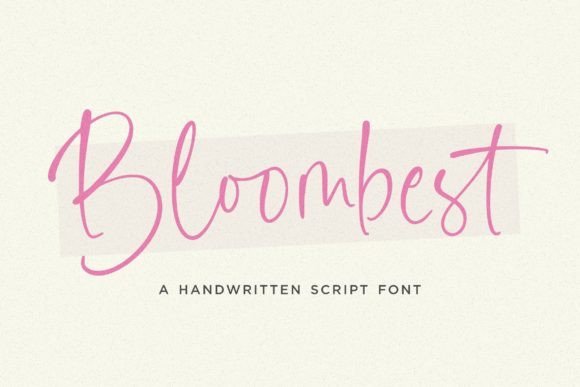
Adding a Personal Touch to Your Designs
Have you ever been working on a design project and felt like something was missing? A spark of creativity that would elevate your work from good to great? For many designers, the solution lies in the perfect font – one that adds a personal touch and makes a lasting impression.
Enter the Bloombest Font, a beautiful handwritten Script that’s sure to capture the essence of your design projects. With its natural, organic feel and unique character, this font is the perfect choice for logos, branding, invitations, and more. Whether you’re a seasoned pro or just starting out, the Bloombest Font is a valuable addition to your design toolkit, offering a modern, handwritten style that’s sure to make an impact.
Bloombest Font Key Features
- Font Styles: Bloombest Font comes in 6 different styles, including Regular, Bold, Italic, Bold Italic, and 2 additional decorative styles.
- Character Count: The font contains over 200 glyphs, including Latin, Cyrillic, and Greek alphabets, as well as a range of punctuation and special characters.
- Unique Characteristics: Bloombest Font features a unique blend of modern and vintage elements, with intricate details and flourishes that set it apart from more traditional fonts.
Bloombest Font Review
I recently had the chance to work with Bloombest Font, and I must say it’s a mixed bag. Let’s start with the good stuff.
- Unique, floral design: Bloombest Font has a distinctive look that’s perfect for spring-inspired projects or anything that needs a touch of whimsy.
- Customizable: The font comes in several styles, including bold and italic, which makes it easy to mix and match to fit your design needs.
Now, onto the not-so-great stuff.
- Limited legibility: In smaller font sizes, the intricate details of Bloombest Font can make it difficult to read, especially for users with visual impairments.
- No language support: Unfortunately, Bloombest Font only supports Latin-based languages, which may limit its usability for projects requiring other language support.
Overall, I think Bloombest Font is a great addition to any designer’s toolkit, but it’s essential to use it judiciously and consider the potential limitations.
Bloombest Font is ideal for creative and elegant designs. Use it for:
- Flower shop branding and packaging
- Event signage and decorations
Alternatives to Bloombest Font for Designers
Bloombest Font is a popular font known for its playful and elegant design. However, there are other fonts that can provide a similar look and feel. Here are a few alternatives:
Great Vibes Font is a modern script font that is perfect for creating a fun and lively atmosphere. It is ideal for use in headings, titles, and other design elements where a playful touch is needed. Great Vibes Font is similar to Bloombest Font in its elegant and sophisticated design, but it has a more modern and trendy feel.
Pacifico Font is a beautiful script font that is perfect for creating a warm and inviting atmosphere. It is ideal for use in body text, quotes, and other design elements where a elegant and sophisticated look is needed. Pacifico Font is similar to Bloombest Font in its elegant design, but it has a more relaxed and casual feel.
Carolyna Pro Font is a modern script font that is perfect for creating a sophisticated and elegant look. It is ideal for use in headings, titles, and other design elements where a touch of luxury is needed. Carolyna Pro Font is similar to Bloombest Font in its elegant design, but it has a more modern and refined feel.